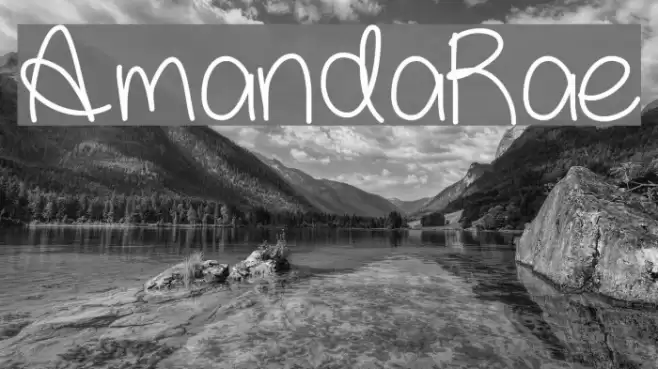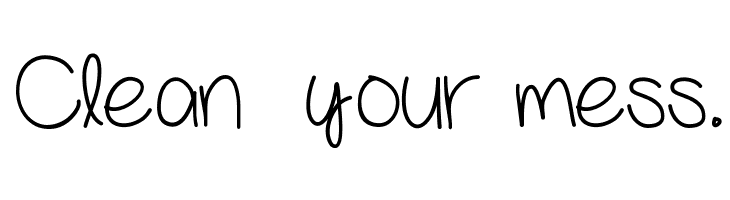
AmandaRae Font
AmandaRae Description
This playful and whimsical font features a handwritten style with a casual, friendly appearance. The letters are slightly irregular, giving it a personal touch that mimics natural handwriting. The strokes are smooth and rounded, with a consistent thickness throughout, creating a harmonious and approachable look. The uppercase and lowercase letters maintain a cohesive style, while the numerals and special characters blend seamlessly with the overall design. This font exudes a sense of creativity and informality, making it ideal for projects that require a personal or artistic flair.
A playful, handwritten font with smooth, rounded strokes and a casual, friendly appearance from Uncategorized fonts.
- Proposed Projects: Ideal for greeting cards, invitations, personal blogs, children's books, and creative branding projects.
- Overall Style: Casual, Playful
- Use Case: Headlines, Informal text, Creative projects